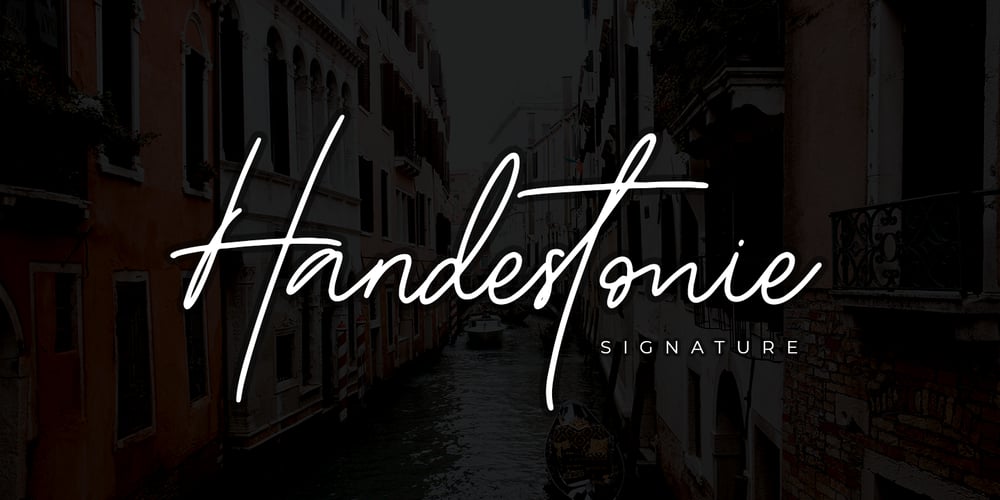
Handestonie Font Family was designed by Abdul Malik Wisnu and published by Almarkha Type. Handestonie contains 1 styles and family package options. Handestonie – Signature Font and classy style, this font is great for your creative projects such as watermark on photography, and perfect for logos & branding, photography, invitation, watermark, advertisements, product designs, stationery, wedding designs, label, product packaging, special events or anything that need handwriting taste.What’s Included :Standard glyphsLigaturesAlternate glyphsWeb FontWorks on PC & MacSimple installationsAccessible in the Adobe Illustrator, Adobe Photoshop, Adobe InDesign, even work on Microsoft Word.PUA Encoded Characters – Fully accessible without additional design software.Fonts include multilingual supportCheers! Thank You